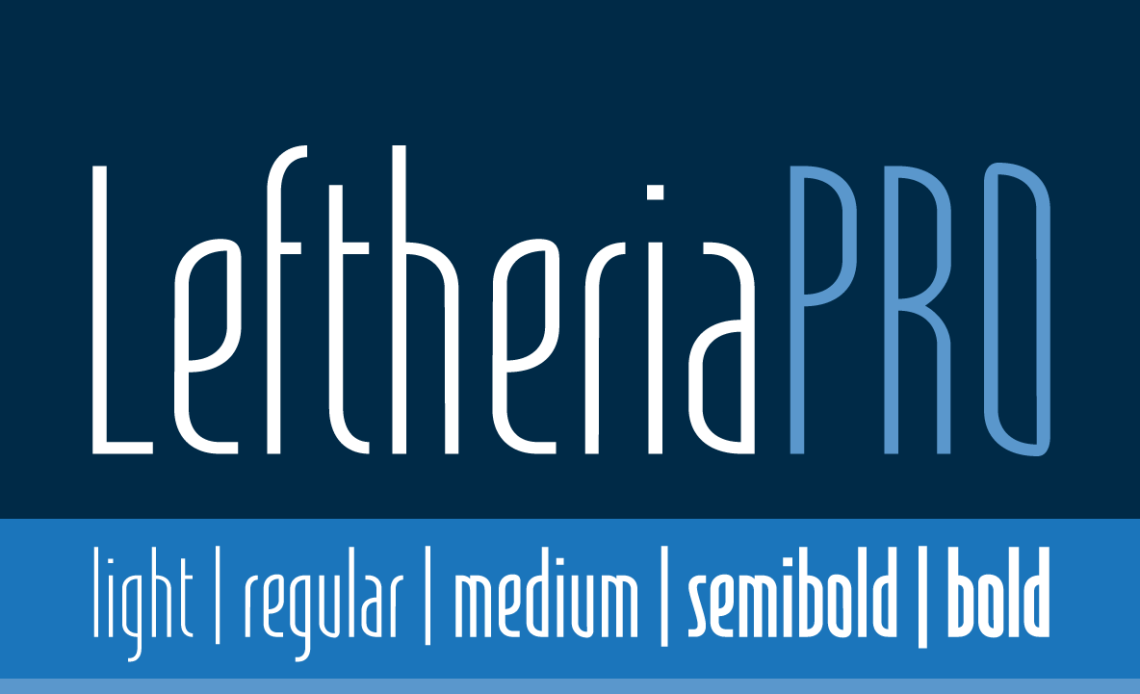
In a digital world ornamented with pixels and bytes, typography reigns supreme as the regal architect of communication and expression. Among the vast tapestry of fonts, LeftheriaPRO Font stands as a beacon of elegance and grace, a sans serif masterpiece meticulously crafted to transcend the boundaries of ordinary typefaces.
Inspired by the majestic columns of the Ionian order of Greek architecture, LeftheriaPRO Font embodies the essence of classical beauty, reimagined for the contemporary realm. Its structure, a harmonious blend of condensed proportions and vertical emphasis, exudes an aura of sophistication and poise.
With five distinct weights - light, regular, medium, semibold, and bold - LeftheriaPRO Font offers a symphony of versatility, effortlessly adapting to a myriad of design landscapes. Its multifaceted nature empowers you to effortlessly convey a spectrum of emotions and messages, from delicate whispers of grace to bold declarations of power.
But LeftheriaPRO Font's allure extends beyond its visual splendor. It is a font imbued with a rich tapestry of features, meticulously designed to elevate your creative vision to unprecedented heights. Ligatures, those graceful unions of characters, dance across the page in a harmonious ballet of elegance, adding a touch of refinement to your text.
A symphony of alternates awaits your exploration, each character a unique variation, a subtle nuance that breathes life into your words. Small caps, like miniature sculptures of grandeur, offer a touch of understated elegance, while old style figures, fractions, superiors, and inferiors complete the ensemble, ensuring that every detail is rendered with utmost precision.
With LeftheriaPRO Font, you possess the power to transform the mundane into the magnificent, to elevate the ordinary into the extraordinary. Its versatility knows no bounds, effortlessly adapting to a multitude of creative endeavors. Unleash your imagination and let LeftheriaPRO Font guide you into a realm where words dance with grace, and messages resonate with profound impact.
From captivating logos that command attention to stunning headlines that demand a second glance, from sleek website designs that exude professionalism to eye-catching social media posts that ignite engagement, LeftheriaPRO Font is your constant companion, your trusted ally in the pursuit of typographic excellence.
As you embark on your creative journey, let LeftheriaPRO Font be your muse, guiding you through the labyrinth of expression, helping you craft digital masterpieces that leave an enduring impression. Experience the transformative power of typography, and witness how LeftheriaPRO Font elevates your designs to new heights of sophistication and allure.